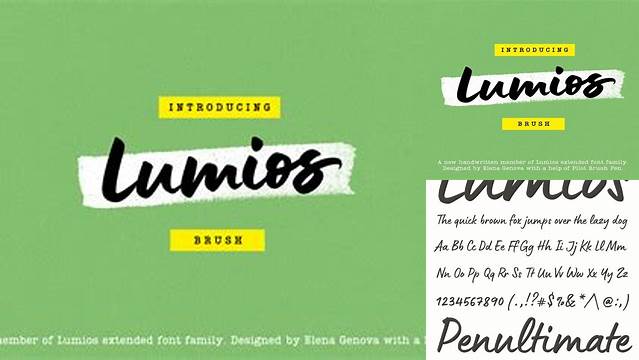
Hey guys! If you're on the hunt for a rad brush font, then you've landed in the right spot! Today, we're diving headfirst into the world of the Lumios Brush Font and, better yet, how to snag a free download of the TTF version. This font is perfect for everything from sprucing up your social media graphics to adding a personal touch to your website. Let's get this show on the road and explore everything about this awesome font! This article will show you how to get the Lumios Brush Font free download, covering all the important aspects and uses for this great font. I'm super stoked to walk you through this – let’s get started, shall we?
What Makes Lumios Brush Font So Special?
Alright, let's talk about what makes the Lumios Brush Font such a standout choice. First off, it's got that authentic, hand-drawn feel. Think about those cool, creative projects you see everywhere; a lot of them are using brush fonts. The Lumios Brush Font really captures that energetic, raw, and artistic vibe. The strokes aren't perfect, which is precisely the charm. The slight imperfections give it a genuine, human touch, making your designs feel more approachable and less sterile. This is perfect if you're going for that handcrafted or vintage feel. Whether it's for a poster, a logo, or an Instagram post, the Lumios Brush Font just pops. It's got a certain dynamism that draws the eye and makes the text feel alive. The design is super versatile, so it can be utilized in multiple types of projects. The brush font is so cool and dynamic it will draw your audience's eye in. Moreover, the font's readability is excellent, especially when used at the right size. You don't want a font that's beautiful but impossible to read, right? Lumios is designed to be both aesthetically pleasing and easy on the eyes. The letters flow together, creating a natural rhythm that makes reading a breeze. It's like the font is whispering to you! So, if you want to give your designs a boost of personality and a touch of that handmade, vintage feel, then the Lumios Brush Font is your go-to font. I truly love how this font looks and how it's able to be used in a multitude of different projects.
The Unique Characteristics of Brush Fonts
Brush fonts, in general, possess several key characteristics that set them apart from other font types. The most striking feature is their hand-painted look. This gives them a personal and artistic touch, which is in stark contrast to the clean, often impersonal, feel of many sans-serif fonts. Because of this, brush fonts are incredibly versatile. They can be used in projects where you want to convey a sense of creativity, spontaneity, or even a touch of rebellion. Think about it: brush fonts can be incredibly effective in branding for creative businesses, in designing invitations, or in creating eye-catching social media graphics. The irregularity of brush fonts is key to their appeal. Unlike fonts that have been created using precise digital tools, brush fonts often have slightly uneven strokes. This gives them a natural and realistic look, as if they were written with a real brush. This also adds to the uniqueness of each letter, which can make the design more dynamic and interesting. Brush fonts often have a calligraphic style that gives the text a flowing or dynamic feel. This is often achieved by the design of the letters and how they connect, making the text more visually appealing. For example, you may have an interesting Instagram post with a caption using a brush font. The use of brush fonts can significantly improve the impact and appeal of any design project, providing a distinctive aesthetic. The characteristics really help it stand out and grab attention. It's the perfect mix of art and functionality. It is a go-to for any design and project.